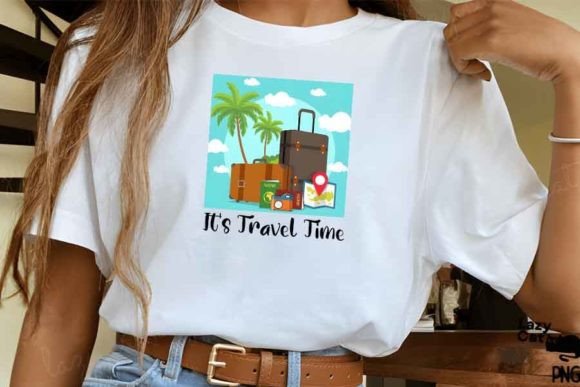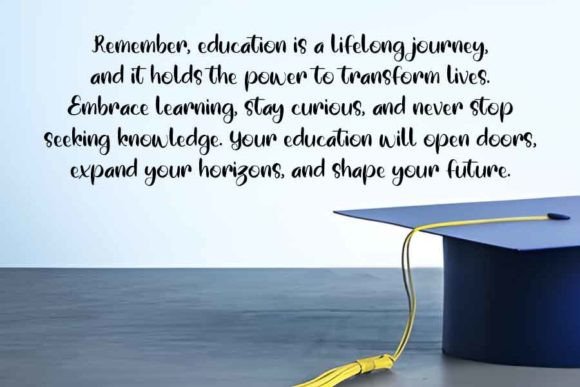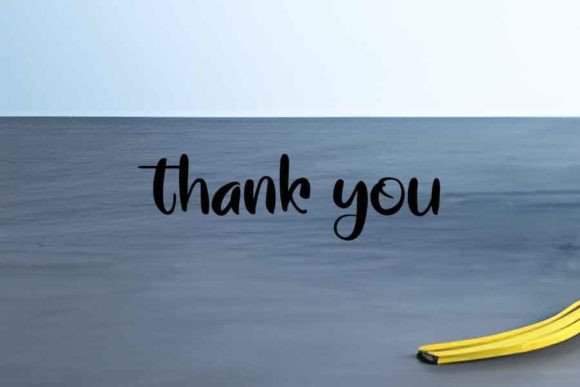
Introduction to Marttile Font
Have you ever stared at a blank canvas, struggling to find the perfect font to bring your creative project to life? It’s a moment many designers know all too well. But what if I told you there’s a font that can effortlessly elevate your design, making it stand out in a crowded space? Say hello to the Marttile Font, a simple yet incomparable handwritten font that’s about to become your new best friend.
Key Features of Marttile Font
- Features a transparent background, making it easy to overlay on images or use as a standalone design element.
- Designed with a high-resolution output in mind, ensuring crisp and clear text at any size, with a recommended resolution of 300 DPI.
- Supports a wide range of languages, making it a versatile design resource for international creative projects.
- Comes in a single font weight, providing a clean and modern aesthetic that is perfect for various design applications.
Honest Review: Marttile Font
As a designer, I’m always on the lookout for high-quality design resources to elevate my creative projects. Recently, I stumbled upon the Marttile Font, and I’m excited to share my honest review.
- ✨ The Marttile Font is incredibly versatile and suitable for a wide range of creative projects, from digital products to branding materials.
- ✨ The Marttile Font features a transparent background, allowing for seamless integration into any design.
- ⚠️ The font library is relatively small, limiting the number of customization options.
- ⚠️ The font may not be suitable for projects requiring a high level of legibility, as some characters may appear slightly distorted.
Overall, I’m impressed with the Marttile Font’s potential as a design resource. While it may have some limitations, its versatility and free download make it an excellent choice for designers working on creative projects.
The Marttile Font is a versatile design resource ideal for creative projects. Its transparent background and high-quality design make it a perfect addition to any project.
Tips for Getting the Most Out of Marttile Font
To get the most out of the Marttile Font, use it in combination with other design elements to create a cohesive look. Experiment with different font sizes, colors, and styles to find the perfect balance for your project.
The Marttile Font is ideal for a variety of creative projects, including logos, branding materials, and marketing materials. Its high-quality design and transparent background make it a versatile design resource for any project.
Alternatives to Marttile Font
Montserrat Font is a popular sans-serif font perfect for modern creative projects. Its sleek design and high quality make it ideal for headings and titles. It’s available for free download and comes in various weights and styles. When to use: For clean and minimalist designs, especially those requiring a transparent background. Comparison to Marttile Font: Montserrat Font is more geometric and modern, while Marttile Font has a more vintage feel.
Open Sans Font is a clean and modern sans-serif font suitable for a wide range of design resources. It’s highly legible and works well for body text. It’s available for free download and comes in various weights and styles. When to use: For everyday designs, such as blogs, articles, and websites. Comparison to Marttile Font: Open Sans Font is more straightforward and lacks the vintage charm of Marttile Font.
Is the Marttile Font available in different weights and styles?